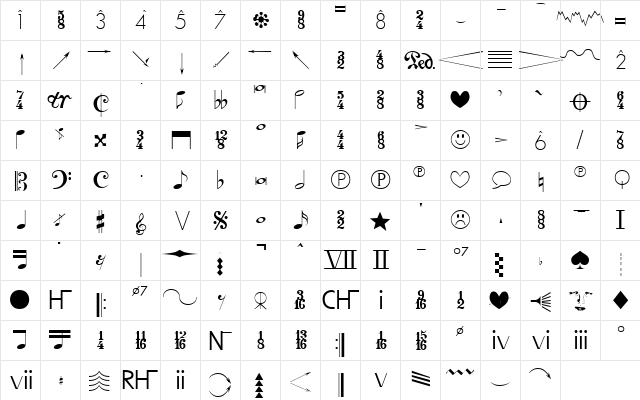
Shpfltnat.fog fog
Design Context for Shpfltnat.fog Typeface
Shpfltnat.fog takes a measured approach to typography — its balanced proportions and neutral character make it a reliable workhorse for both digital and print work.